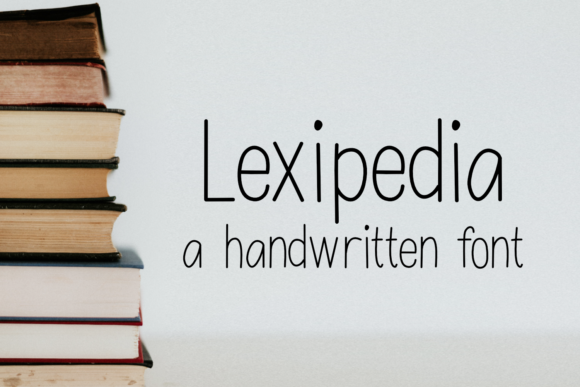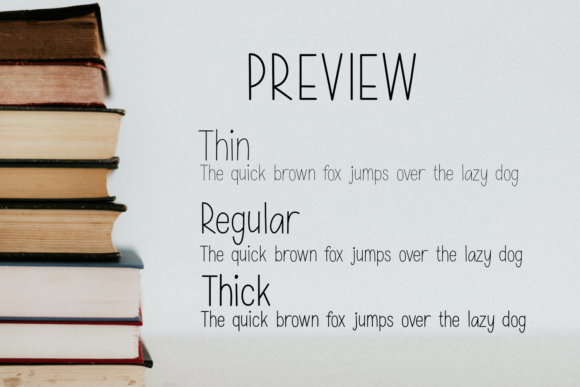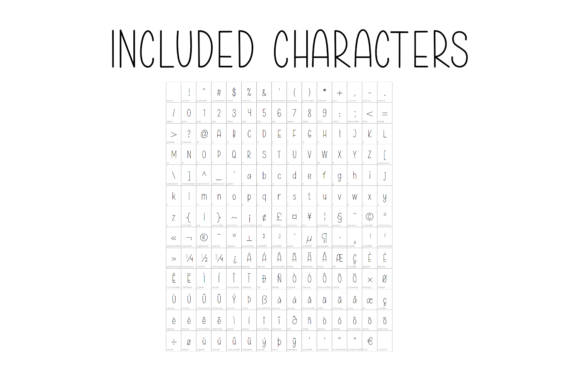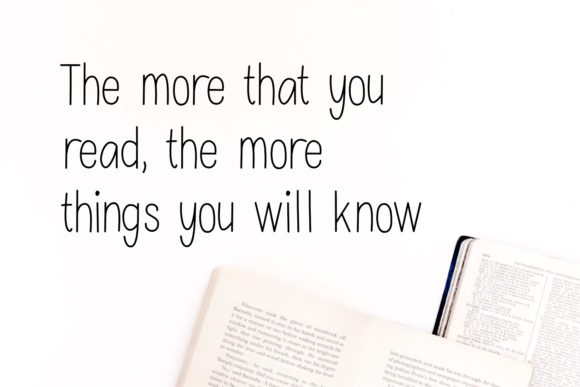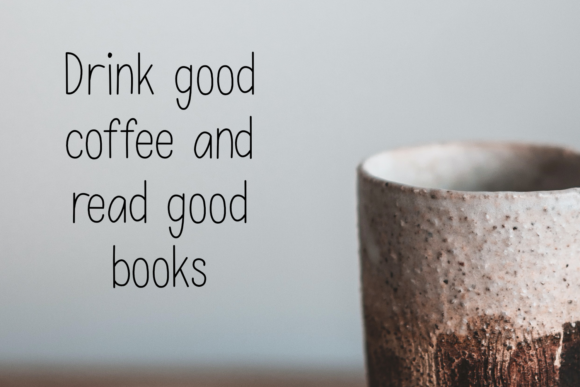
Lexipedia Font
Introducing Lexipedia, a clean and slim handwritten font designed with precision and simplicity. This versatile font is perfect for a range of creative applications, making it suitable for product packaging, branding projects, magazine covers, social media graphics, weddings, or any context where a clean and slim handwritten style is desired.
The charm of Lexipedia lies in its clean design, offering a contemporary and versatile aesthetic. The slim handwritten strokes make it suitable for conveying a modern and sophisticated look across various design projects.
For product packaging, Lexipedia becomes a defining element in creating a visually appealing and cohesive brand identity. The clean and slim handwritten style adds a touch of elegance to labels and packaging, ensuring your products stand out on shelves.
In branding projects, Lexipedia contributes to a modern and minimalist visual language. Its simplicity and clarity make it adaptable to various industries, allowing your brand to communicate with a clean and approachable tone.
Magazine covers benefit from the clean and slim design of Lexipedia, providing a modern and stylish typography choice. The font’s readability ensures that text is easily legible while maintaining a contemporary and fresh appearance.
On social media, Lexipedia adds a touch of sophistication to graphics and posts. Its clean handwritten style is engaging and modern, making it suitable for creating visually appealing content that resonates with your audience.
For wedding materials, Lexipedia’s slim handwritten characters bring a subtle and elegant touch. Whether used for invitations or other design elements, the font enhances the overall aesthetic with a clean and sophisticated look.
Lexipedia is more than just a font; it’s a versatile design tool that brings a clean and slim handwritten style to a variety of creative projects. Embrace the modernity and simplicity of Lexipedia as you infuse your designs with a touch of contemporary elegance.